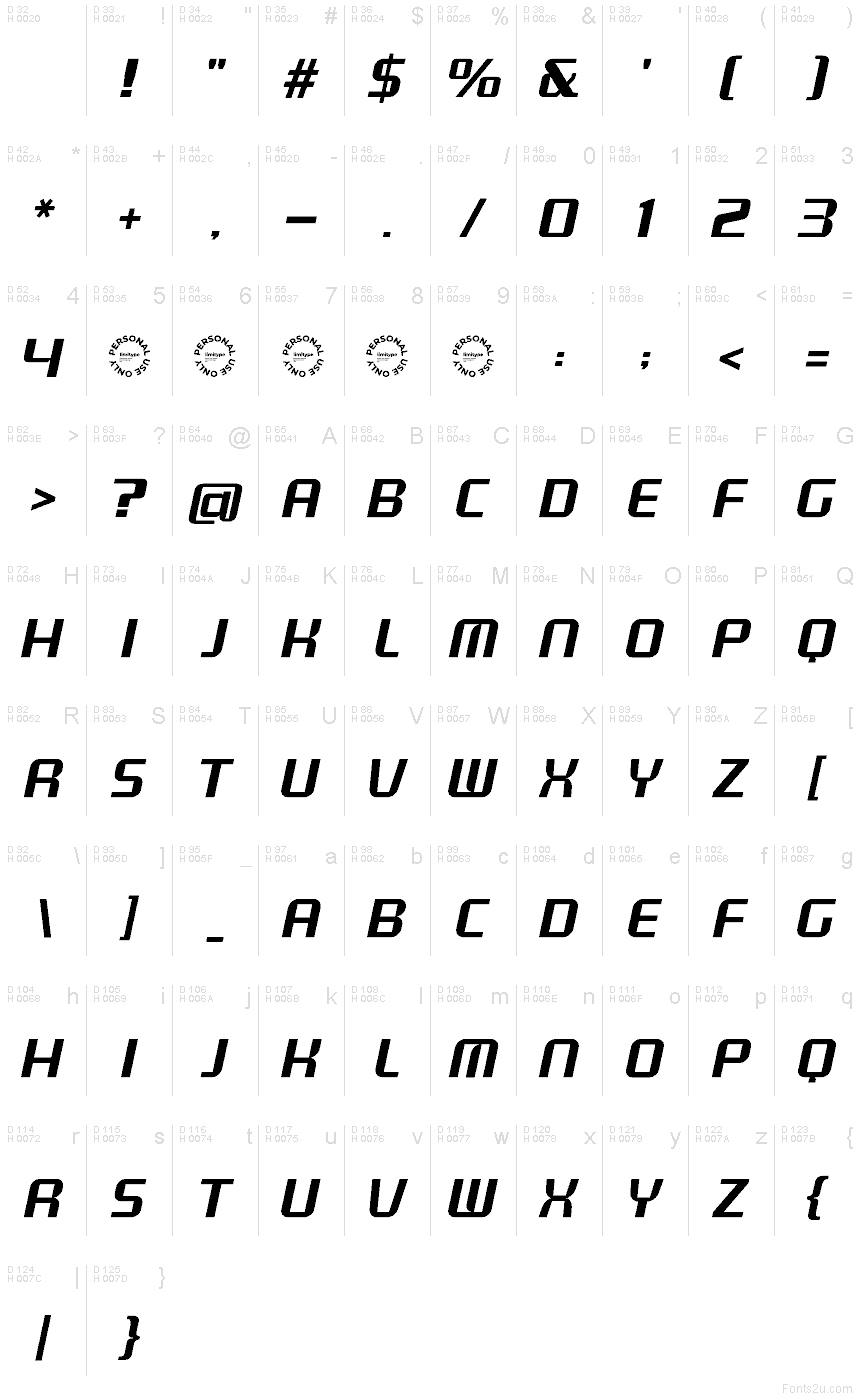
Neospeed Oblique Demo
Neospeed Oblique font is a sleek, modern display font by Limitype. This futuristic typeface draws inspiration from the racing world and gives with its angular shapes a strong presence to any written text. It has a bold stance which will naturally grab attention even if used for relatively short paragraphs.
Neospeed Oblique, available as a free font, has numerous interesting use cases most excerpted in display work. Use it in logotypes, headlines and magazines. Websites or mobile apps are other frequent examples as well as posters, street wear clothing prints and more.